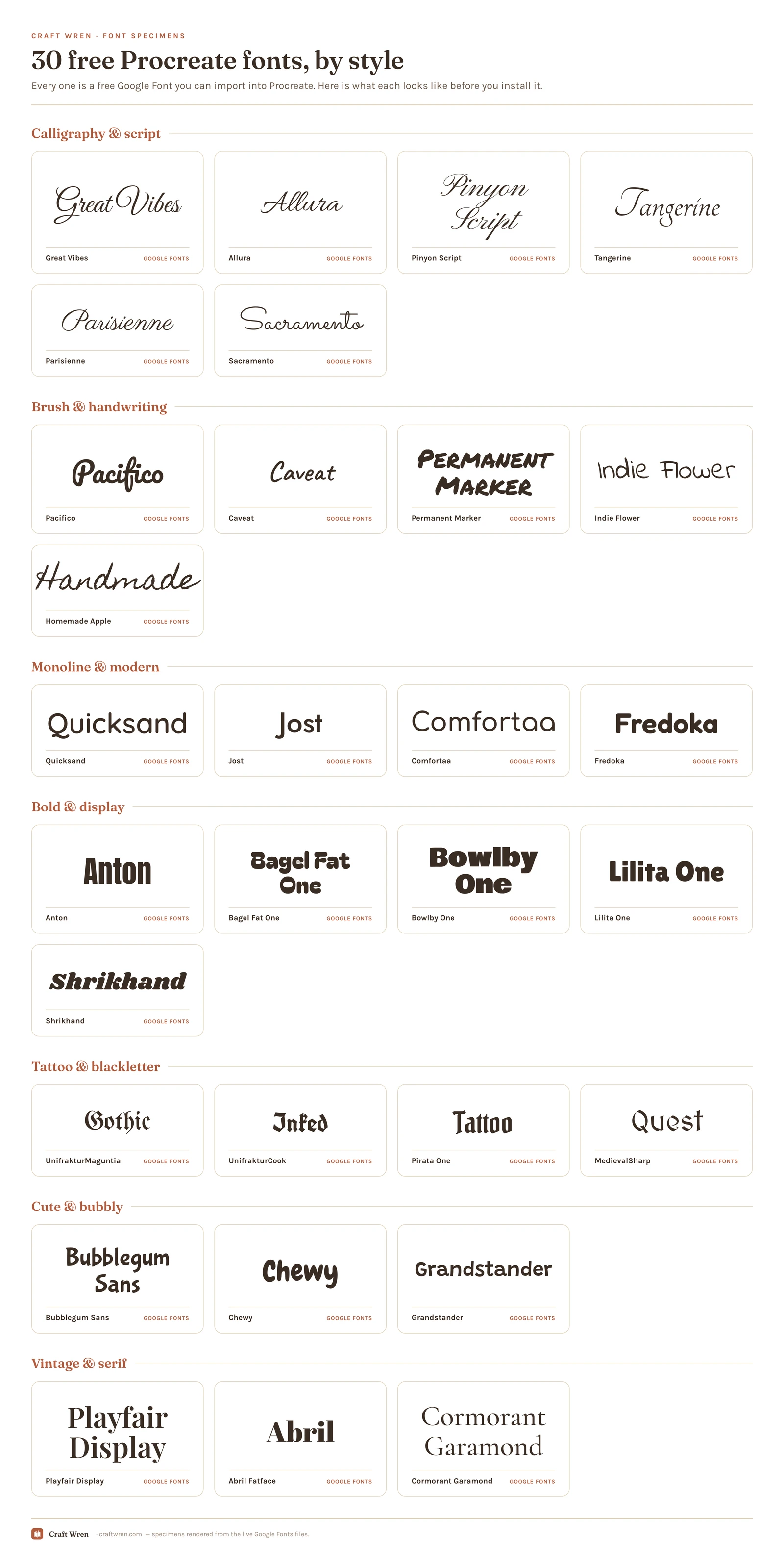
You finally got comfortable enough in Procreate to letter a quote you would actually post. The sketch is clean, the palette is right, the brush feels good under the Pencil. Then you go to set the words, and the font picker hands you the iPad system fonts: Helvetica, a few polite sans serifs, not one of them looking like it was drawn by hand. The lettering was the whole point, and the default shelf is the one thing on the iPad that cannot do it.
The 30 below are a shelf to shop, not a haul to hoard. They are sorted by look, so when a project needs a wedding script or a gothic tattoo word, you can jump straight to that group and ignore the rest.
All 30 fonts side by side
| Font | Sub-style | What it gives you | Smallest print size |
|---|---|---|---|
| Anton | Bold | Tall heavy condensed, poster headline | 1.5 mm |
| Fredoka | Monoline | Rounded and gently chunky for headers | 1.6 mm |
| Lilita One | Bold | Fat but tidy, bold without shouting | 1.6 mm |
| Bowlby One | Bold | Chunky rounded display, retro presence | 1.6 mm |
| Chewy | Cute | Soft, fat, bouncy: birthday-banner energy | 1.8 mm |
| Bubblegum Sans | Cute | Rounded and playful, kids-party lettering | 1.9 mm |
| Grandstander | Cute | Rounded wobble, cheerful homemade feel | 1.9 mm |
| Bagel Fat One | Bold | Balloon-fat letters that need to run big | 2.1 mm |
| Quicksand | Monoline | Geometric rounded sans, friendly workhorse | 2.1 mm |
| Shrikhand | Bold | Heavy display, warm vintage character | 2.1 mm |
| Pacifico | Brush | Warm surfy brush, casual friendly | 2.3 mm |
| Jost | Monoline | Crisp Futura-style geometric sans, grown-up | 2.3 mm |
| Permanent Marker | Brush | Fat marker with Sharpie boldness | 2.5 mm |
| Comfortaa | Monoline | Fully rounded balloon-soft, calm modern | 2.5 mm |
| Caveat | Brush | Real-pen handwriting, slanted authentic look | 3.3 mm |
| Indie Flower | Brush | Bubbly rounded, sweet and approachable | 3.8 mm |
| Pirata One | Tattoo | Rougher blackletter gothic, modern readable | 4.6 mm |
| Sacramento | Calligraphy | Clean monoline script, modern signature | 5.4 mm |
| Homemade Apple | Brush | Realistic cursive loop, personal signature | 5.5 mm |
| UnifrakturCook | Tattoo | Bolder blackletter, heavier punch weight | 5.5 mm |
| Parisienne | Calligraphy | Casual bouncy script, friendly cards | 8.5 mm |
| Playfair Display | Vintage | High-contrast elegant serif, editorial look | 8.5 mm |
| Allura | Calligraphy | Softer with graceful swashes, single names | 8.5 mm |
| MedievalSharp | Tattoo | Hand-cut gothic, grungier medieval edge | 8.5 mm |
| Cormorant Garamond | Vintage | Refined thin classic, quiet delicate | 10.0 mm |
| Abril Fatface | Vintage | Thick swooping display serif, dramatic | 10.0 mm |
| UnifrakturMaguntia | Tattoo | Classic blackletter ornate, dense dramatic | 10.0 mm |
| Tangerine | Calligraphy | Thin airy dramatic, flourishes only | 11.9 mm |
| Great Vibes | Calligraphy | Wedding classic with loops, big sizes only | 12.0 mm |
| Pinyon Script | Calligraphy | Old-fashioned copperplate, formal and vintage | 14.9 mm |
How to add fonts to Procreate
Installing a font takes about a minute, and the steps are the same whether it is one font or twenty. The only real gotcha is the file itself, so start there.
First, get the font onto your iPad. Download it (from Google Fonts, tap the family, then download the family), and make sure the file lands in your Files app or iCloud Drive, because Procreate can only import a font that is already saved on the device. If the download arrives as a .zip, tap it once in Files to unzip it first, then dig out the actual font file inside. Procreate takes .otf, .ttf, and .ttc files, and if a download gives you both an .otf and a .ttf, reach for the .otf version.